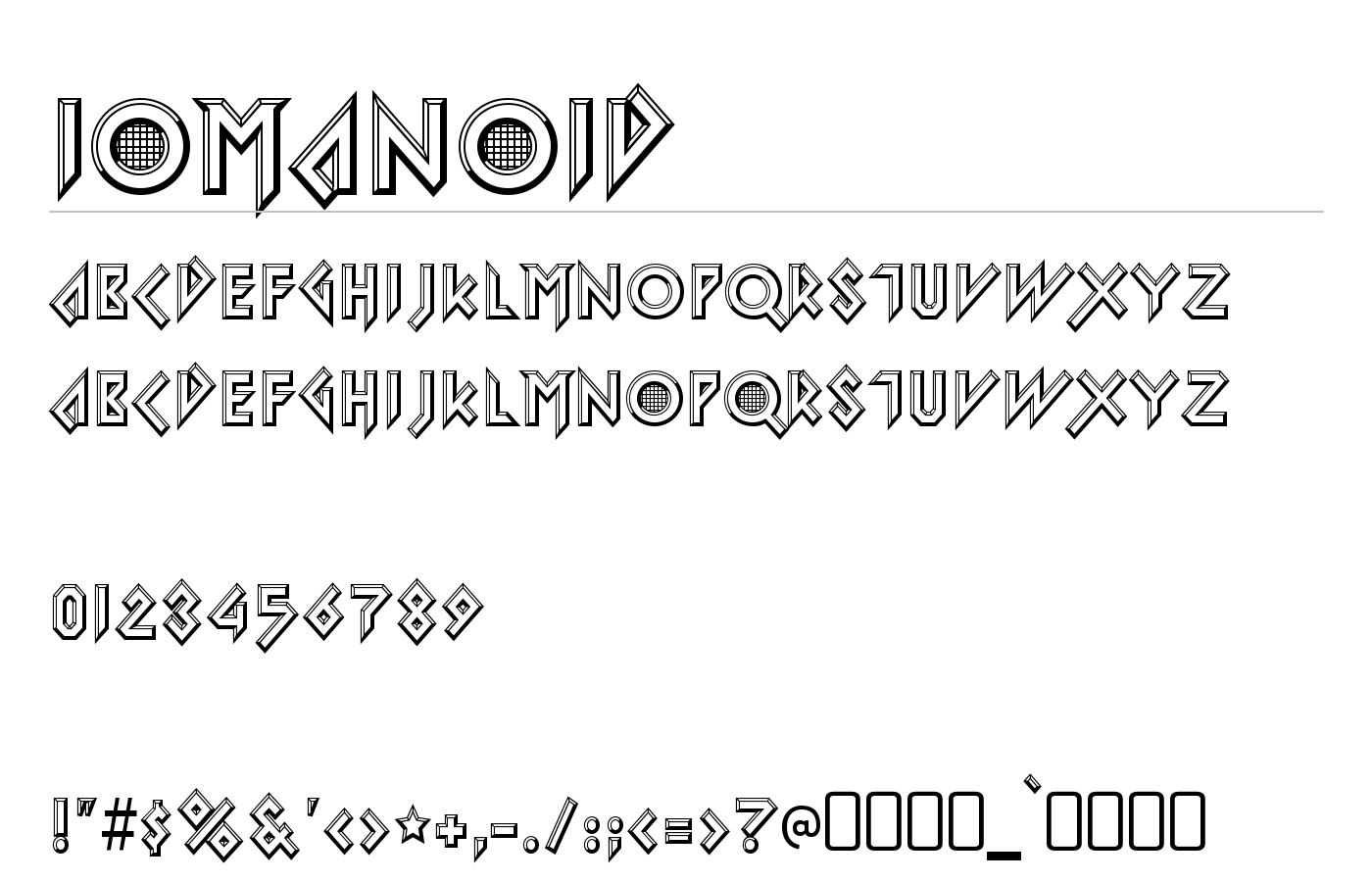
Iomanoid is a bold, geometric display font with a futuristic and techno vibe, characterized by its sharp angles and intricate, layered shapes that give a three-dimensional effect. This stylized all-caps font features high contrast and unique details like grid patterns inside circular letters, making it perfect for eye-catching titles, logos, and creative projects that seek a modern, sci-fi inspired aesthetic. Its distinctive, decorative design is ideal for brands or media that want to stand out with a dynamic, edgy look.
Iomanoid Font
About Iomanoid Font
| Font family | Iomanoid Font |
| Designer | Ray Larabie |